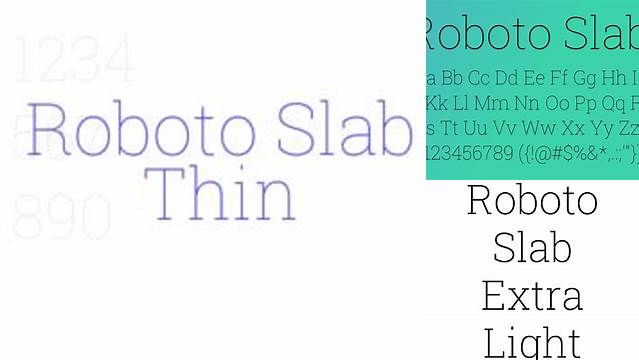
Roboto Slab Thin Font: An Introduction
Okay, so what exactly is Roboto Slab Thin? Well, it's a variation of the popular Roboto font family, specifically designed with a slab-serif style and an incredibly thin weight. This combination gives it a unique, modern aesthetic that's perfect for a variety of design applications. It's clean, it's readable, and it adds a touch of elegance without being overly fussy. The Roboto Slab Thin font is a versatile choice for both headlines and body text, making it a go-to option for many designers. It is a favorite of the design industry. For those of you who have no idea, it is a slab-serif typeface. The letters have little 'serifs' or strokes at the end of each main stroke. The 'thin' part refers to the font weight. It's very delicate and sleek. That's a great start! If you use this font, it shows you are a professional. It gives you some flair and elegance in your project.
Roboto Slab Thin is more than just a font; it's a statement. Its thin lines and slab-serif characteristics create a modern, sophisticated feel. It's a font that says, "I'm contemporary, I'm stylish, and I pay attention to detail." Whether you're designing a website, creating marketing materials, or simply putting together a presentation, Roboto Slab Thin can help you achieve a polished, professional look. The font's versatility allows it to be used in various projects, including but not limited to logos, branding, website headers, and body text. The elegance of the font is also one to consider. So many of you want a font that looks great. With its clean lines and distinct serifs, it will make your text pop out on the screen.
When compared to other fonts, the Roboto Slab Thin font stands out due to its unique combination of thin weight and slab-serif style. This distinctiveness allows designers to create modern, clean layouts that convey a sense of sophistication. Many users like this font and its many applications. A lot of designers enjoy the fact that you can get this font for free. It also offers enhanced readability compared to some other fonts. This readability is especially crucial for body text, ensuring a pleasant reading experience for your audience. This font provides a balance of aesthetics and functionality, making it a top choice for many. Compared to other fonts, its thin weight and slab-serif details give a unique and modern look. This makes your project stand out. This thin font provides a great and wonderful experience for your viewers or readers. You can be sure they will be more engaged with your design.
The Origins and Design Philosophy of Roboto Slab Thin
The Roboto family was designed by Christian Robertson and released by Google as part of the Android operating system. The goal was to create a font that was both readable and visually appealing on a variety of devices. Roboto Slab Thin builds on this foundation, offering a refined version of the original design. It embodies a philosophy of clarity and modernity. The design philosophy is centered around creating a font that is not only aesthetically pleasing but also highly functional. Robertson and Google wanted a font to be versatile and adaptable to different applications. The typeface family’s design philosophy focuses on a balance between technical and artistic aspects.
This font is perfect for both digital and print applications. Its design promotes clean and modern layouts. Roboto Slab Thin’s origins reflect a desire to provide a high-quality, accessible font that meets the needs of modern design. The design philosophy behind Roboto Slab Thin emphasizes clarity and readability. It is perfect for modern design projects. The focus on clarity and modernity ensures that the font remains a valuable tool for designers seeking a balance of aesthetics and functionality. The goal was to create a design that is easily readable in different formats.
Benefits of Choosing Roboto Slab Thin for Your Projects
Choosing Roboto Slab Thin for your projects offers numerous benefits, making it a compelling choice for designers and creators. One of the most significant advantages is its versatility. The font adapts well to a wide range of applications, from headlines and titles to body text. The clean, modern look of the font elevates the overall aesthetic of your designs. Its thin weight and slab-serif style provide a unique visual appeal. This allows your projects to stand out from the crowd. Another benefit is its excellent readability. It ensures that your content is easily digestible for your audience. This is crucial for maintaining engagement and conveying your message effectively. Furthermore, Roboto Slab Thin is a free font. Accessibility is something to consider. This makes it an accessible option for projects of all sizes and budgets. The font also provides high-quality design and functionality. This is why Roboto Slab Thin is a go-to option for many. It will give your design a better look.
The benefits of choosing Roboto Slab Thin are its ability to bring a touch of sophistication and elegance to your design. Its modern style allows you to create a contemporary look and feel. Because this font is free, it can be used by everyone. It is a great option for different projects of any size. The design of this font is also readable. This font ensures your message is clear to your audience. The font’s versatility and high quality are the reasons why it is a great option for many.
Conclusion: Unleash the Power of Roboto Slab Thin
And there you have it, guys! Everything you need to know about Roboto Slab Thin – from downloading it for free to using it effectively in your designs. This versatile font can make your projects look more modern and polished. Its thin style and slab-serif style give it a look that is sure to catch your viewer's attention. Don't be afraid to experiment with different font combinations, sizes, and styles. Remember to download it from a trusted source like Google Fonts and always check the license before using it. Now go out there, download Roboto Slab Thin, and start creating some amazing designs!